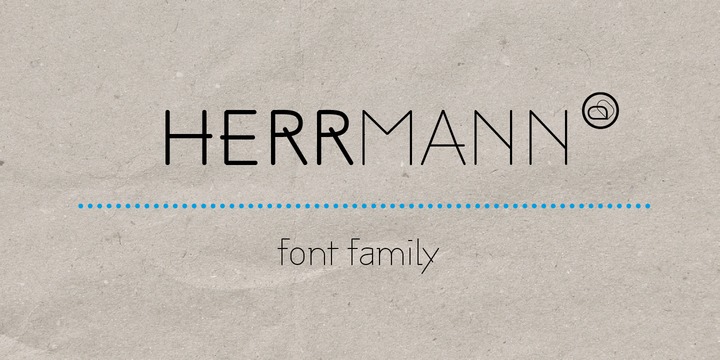
Herrmann is a sans serif typeface family. It was especially designed for use in headlines, but it’s great legibility also allows for use in longer texts and smaller sizes. The geometrical design gives it a distinct industrial / architectural style. Herrmann comes in 10 styles (thin, light, regular, semibold and bold, all in regular and italic) and has 374 glyphs.